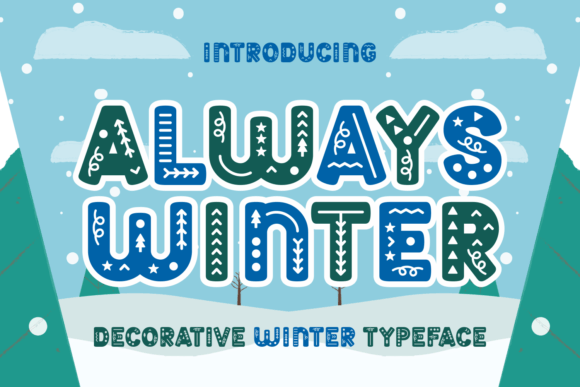
The Magic of Always Winter Font: A Designer’s Delight
I’ll never forget the time I was working on a Christmas project for a client, and I just couldn’t find the right font to match the festive vibe I was going for. The design was supposed to be fun, playful, and inviting, but every font I tried seemed either too boring or too over-the-top. That’s when I stumbled upon Always Winter Font, and let me tell you, it was like a winter wonderland in my design world! 🎄
An Honest Review of Always Winter Font
So, what makes Always Winter Font so special? Here are some things I love about it:
• ✨ Unique winter doodles: This font is packed with adorable winter-themed doodles that add a touch of whimsy to any design.
• ✅ PUA encoded: The font is PUA encoded, making it easy to access all the glyphs and special characters.
• 🎉 Festive and fun: Always Winter Font is perfect for creating Christmas invitations, cards, and other holiday-themed designs.
Now, I’m not going to sugarcoat it – there are a few small quirks to be aware of:
• 🤔 Some glyphs require extra effort to access: While the font is PUA encoded, some glyphs might require a bit more effort to access, especially if you’re new to using OpenType features.
• ⚠️ Limited use outside of winter holidays: Let’s face it – this font is specifically designed for winter holidays, so it might not be the best choice for designs outside of that theme.
The Story Behind Always Winter Font
Always Winter Font was designed with the intention of capturing the magic and joy of winter. The creator, a passionate typographer, wanted to craft a font that would bring a smile to people’s faces and inspire them to create something special. With its unique winter doodles and PUA encoding, Always Winter Font has become a favorite among designers and crafters.
What is Always Winter Font best used for? Always Winter Font is perfect for creating Christmas invitations, cards, advertising materials, gift tags, and more.
Is Always Winter Font PUA encoded? Yes, Always Winter Font is PUA encoded, making it easy to access all the glyphs and special characters.